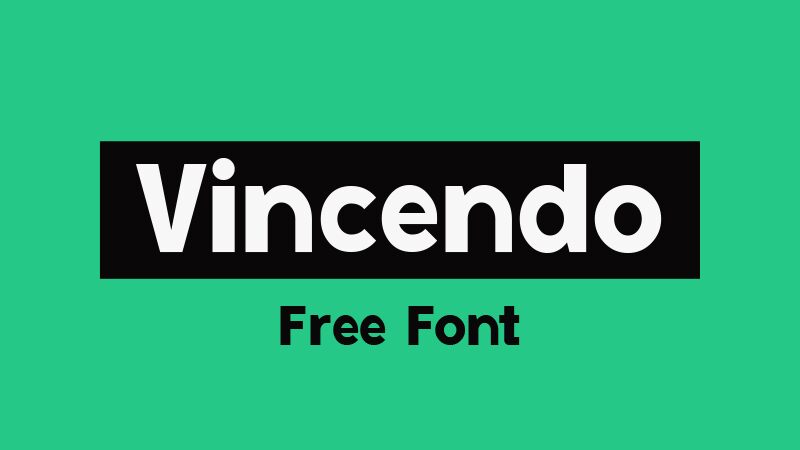
Vincendo
Vincendo font by GGBotNet is a bold comic display font type. Despite the absence of serifs, Vincendo letters have interesting geometric endings to make them visually appear somewhat similar to serifs. This free font resists giving unnecessary distraction and puts the focus on what matters most, your message!
The use of Vincendo in creating posters and signs is recommended. Its simple clean style transforms formal text from boring to interesting. From school books covers to kids’ product packaging, this typeface can be your ultimate source of attraction and joy! Small chunks of text can also benefit from switching to this lovely font face.